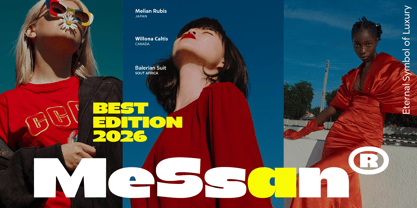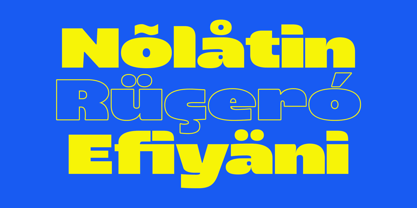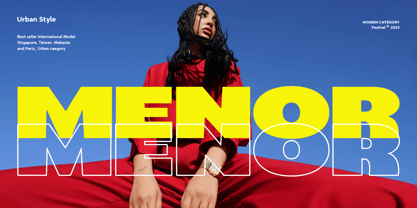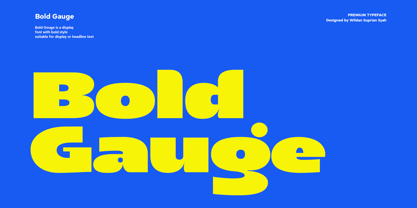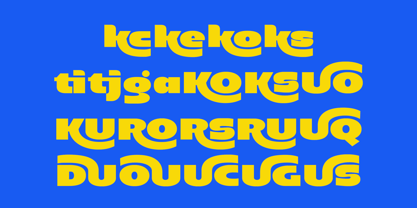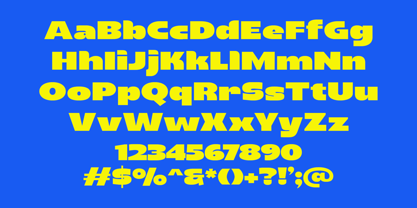
Bold Gauge Outline
by Isolatype
The Bold Gauge Outline Font Family was designed by Wildan Suprian Syah and published by Isolatype. Bold Gauge Outline contains 1 styles. More about this family
Bold Gauge is a bold, experimental display font that seamlessly blends 70s psychedelic vibes with a modern futuristic edge. Featuring dynamic curves and ultra-bold letterforms, this typeface is engineered to make a powerful visual statement. The standout feature of this font is its decorative ligatures and fluid, wave-like strokes that add rhythm and organic movement to any layout. It’s the perfect choice for designers looking to break the mold and inject personality into their work. Best used for any project requiring a liquid, brand identity, or trippy aesthetic.
Designers: Wildan Suprian Syah
Foundry: Isolatype